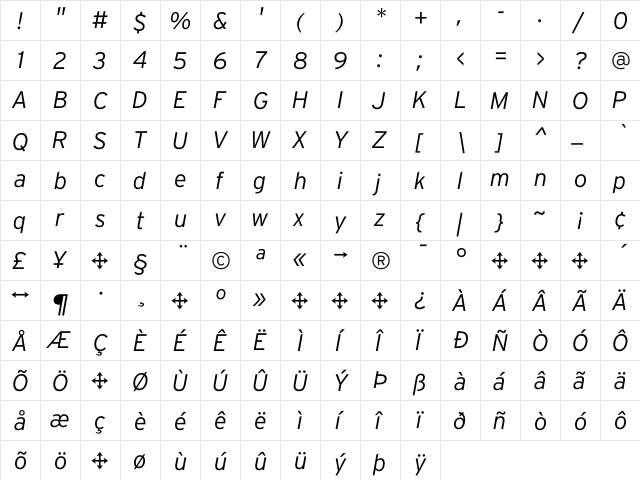
Interstate Light Italic Font Preview
Interstate Light Italic
Design Context for Interstate Typeface
Interstate is a composed and adaptable typeface that performs quietly and consistently across a wide range of design contexts. The slanted form adds forward momentum and visual energy. The delicate stroke weight brings airiness and refinement to layouts.
Pro Tip: Use Interstate for emphasis, pull quotes, and subheadings where its slanted energy can add rhythm to the layout.